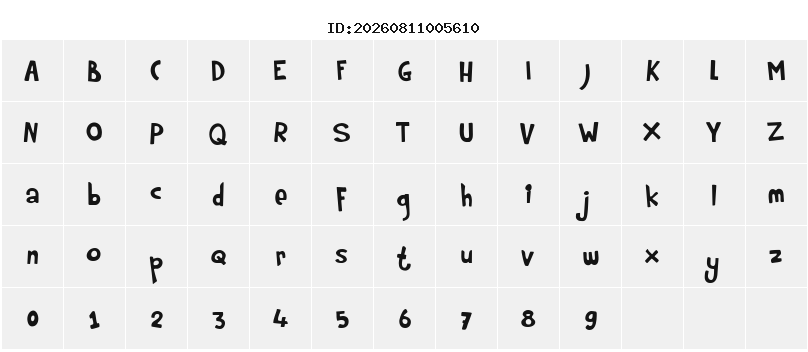
• Font Name: Rumpelstiltskin
• Designer: David Kerkhoff
• Description: Rumpelstiltskin is a font by David Kerkhoff, designed by David Kerkhoff in 2010.
Rumpelstiltskin.ttf is a modern, elegant sans-serif font designed for ultimate readability and visual harmony. Perfect for branding, headlines, web design, and print materials.